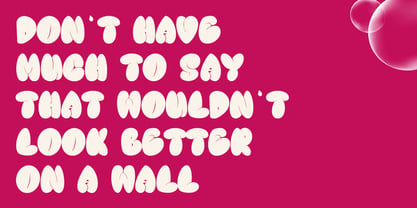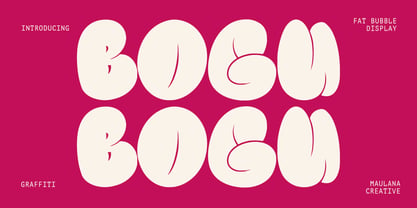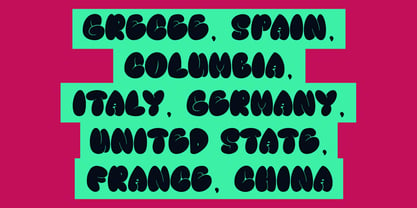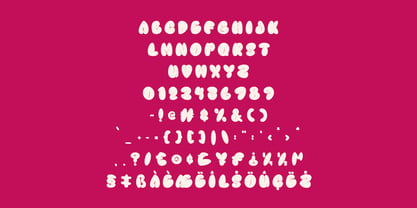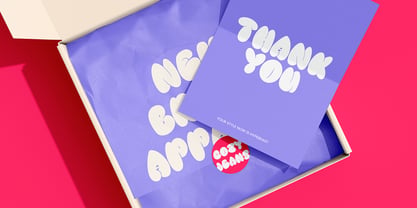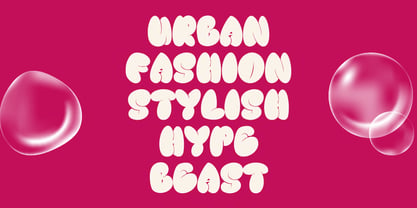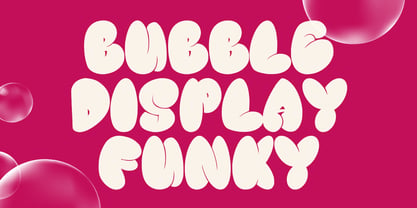
MC Bogu Bogu
by Maulana Creative
The MC Bogu Bogu Font Family was designed by Gilang Maulana and published by Maulana Creative. MC Bogu Bogu contains 1 styles. More about this family
Bogu Bogu fat bubble graffiti display font. Bold stroke, fun character with a awesome glyph. To give you an extra creative work. Bogu Bogu graffiti display font support multilingual more than 100+ language. This font is good for logo design, Social media, Movie Titles, Books Titles, a short text even a long text letter and good for your secondary text font with script or serif. Make a stunning work with Bogu Bogu fat bubble graffiti display font.
Designers: Gilang Maulana
Foundry: Maulana Creative